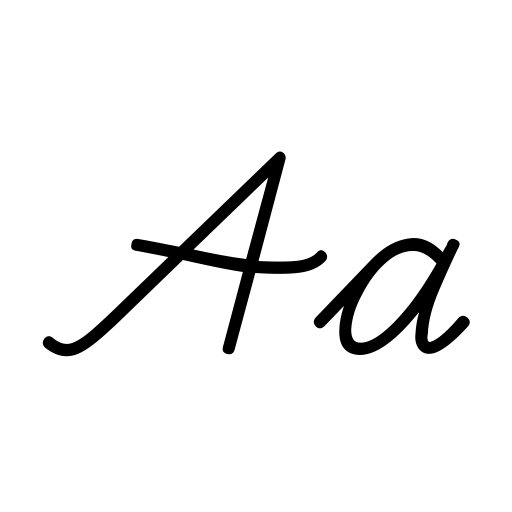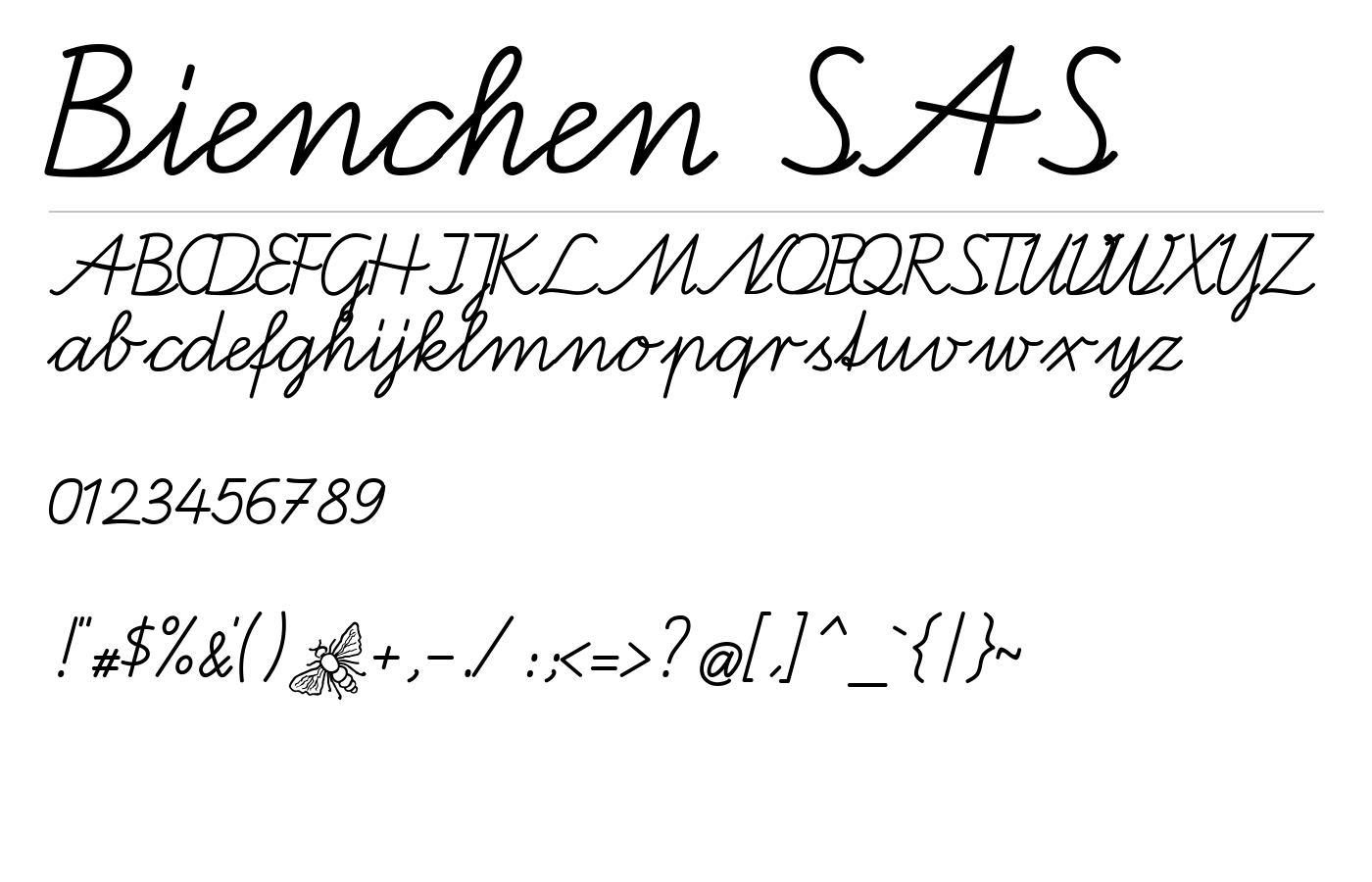
Bienchen SAS is a delicate, handwritten script font with a light weight and narrow width, featuring smooth, flowing strokes and a natural, elegant feel. Its slender letterforms, single-story 'a' and 'g', and subtle flourishes give it a refined yet approachable personality, ideal for personal branding, invitations, and feminine design projects. This font works best in headlines or short texts where its intricate charm can shine without losing legibility.
About Bienchen SAS Font
| Font family | Bienchen SAS Font |
| Designer | Peter Wiegel |